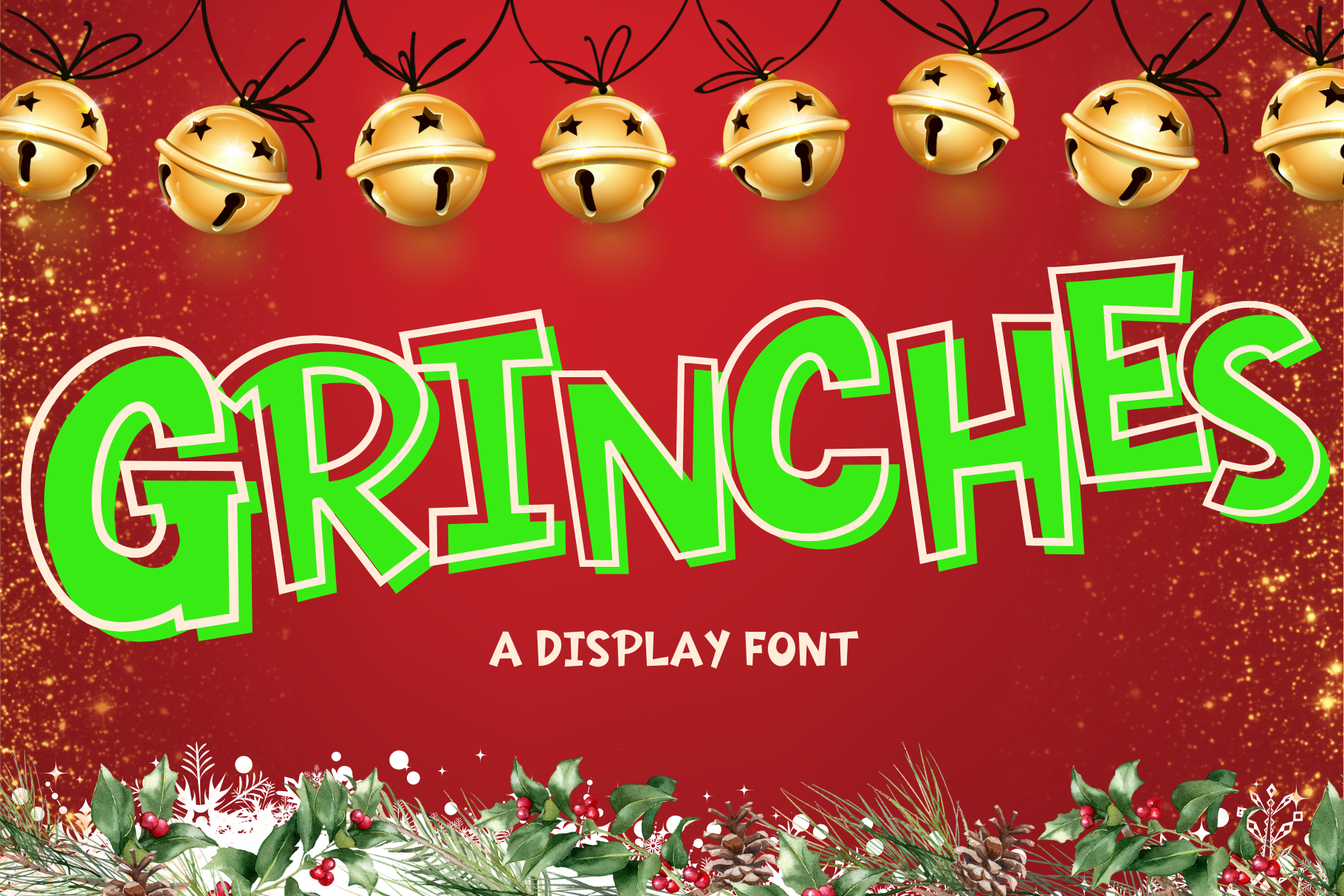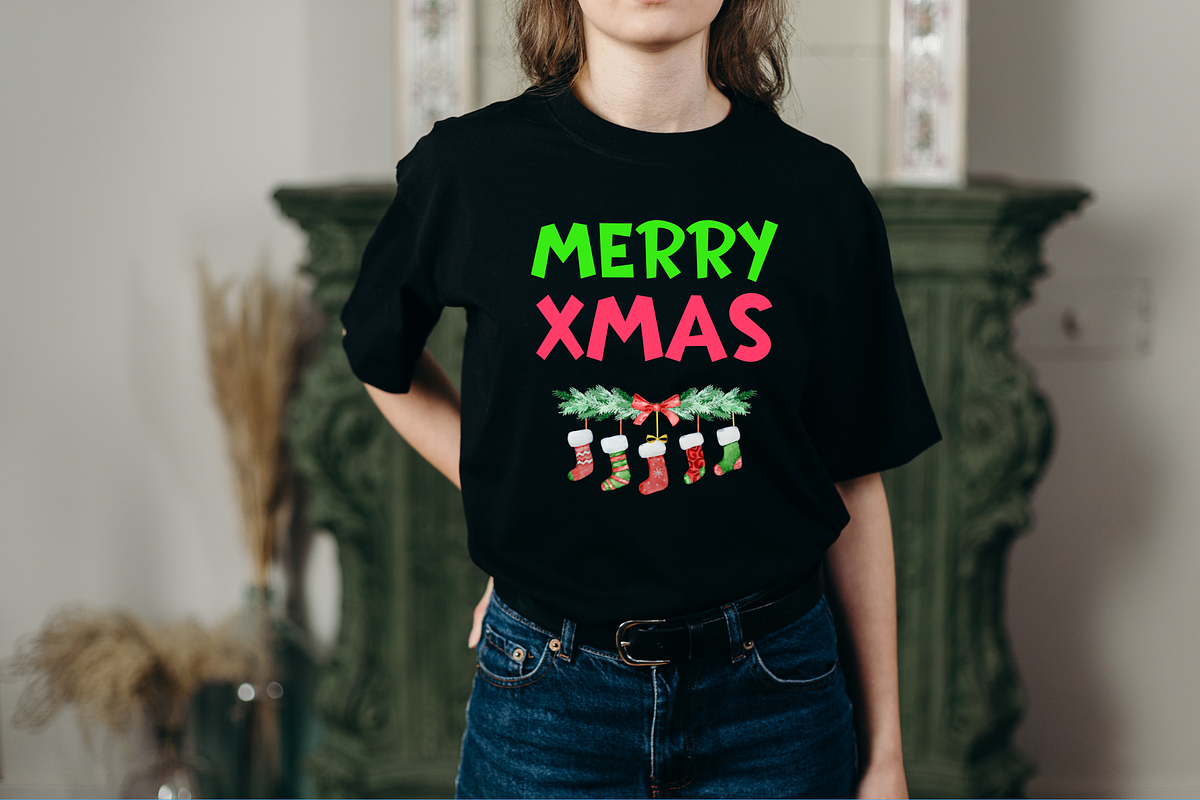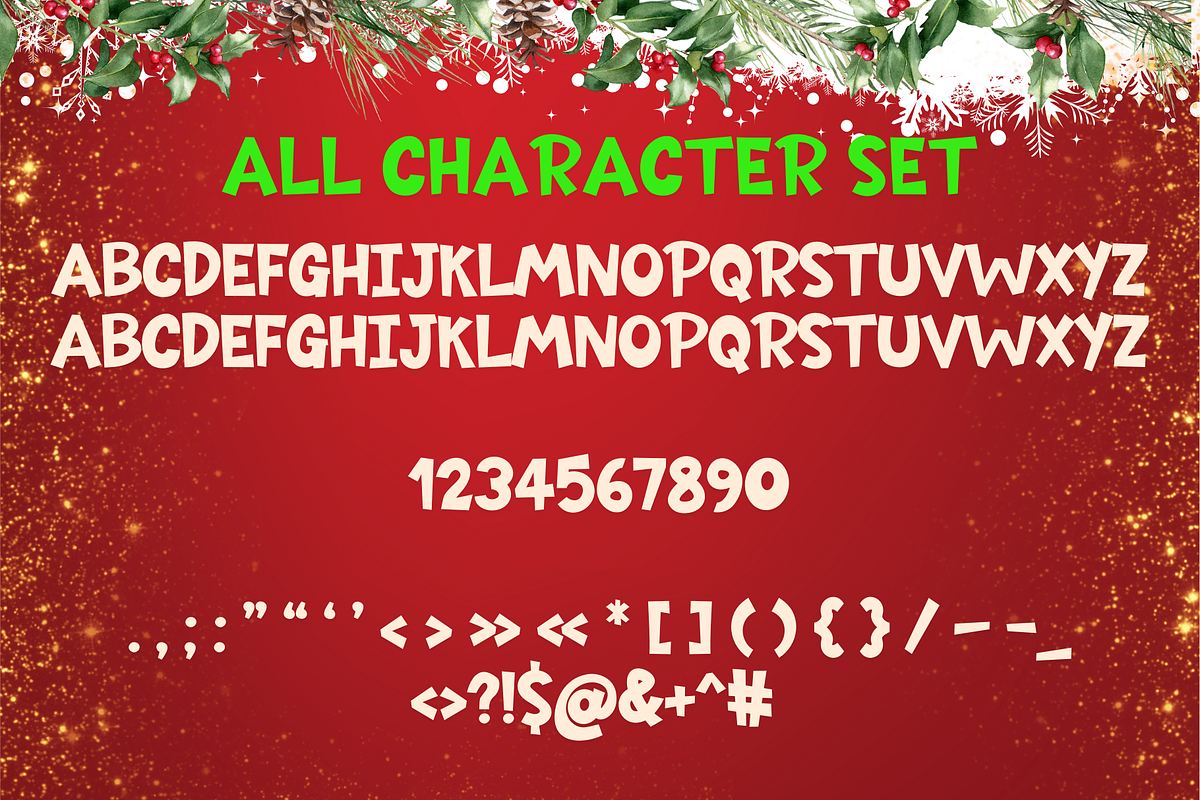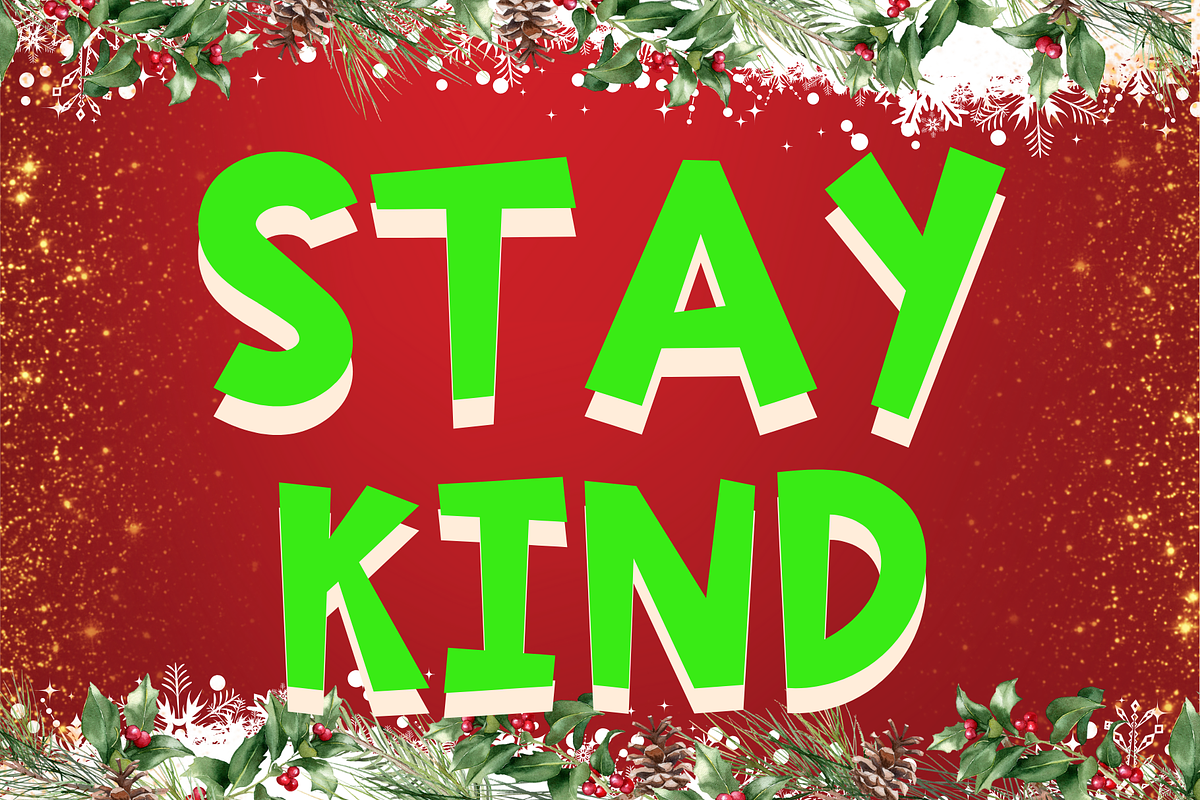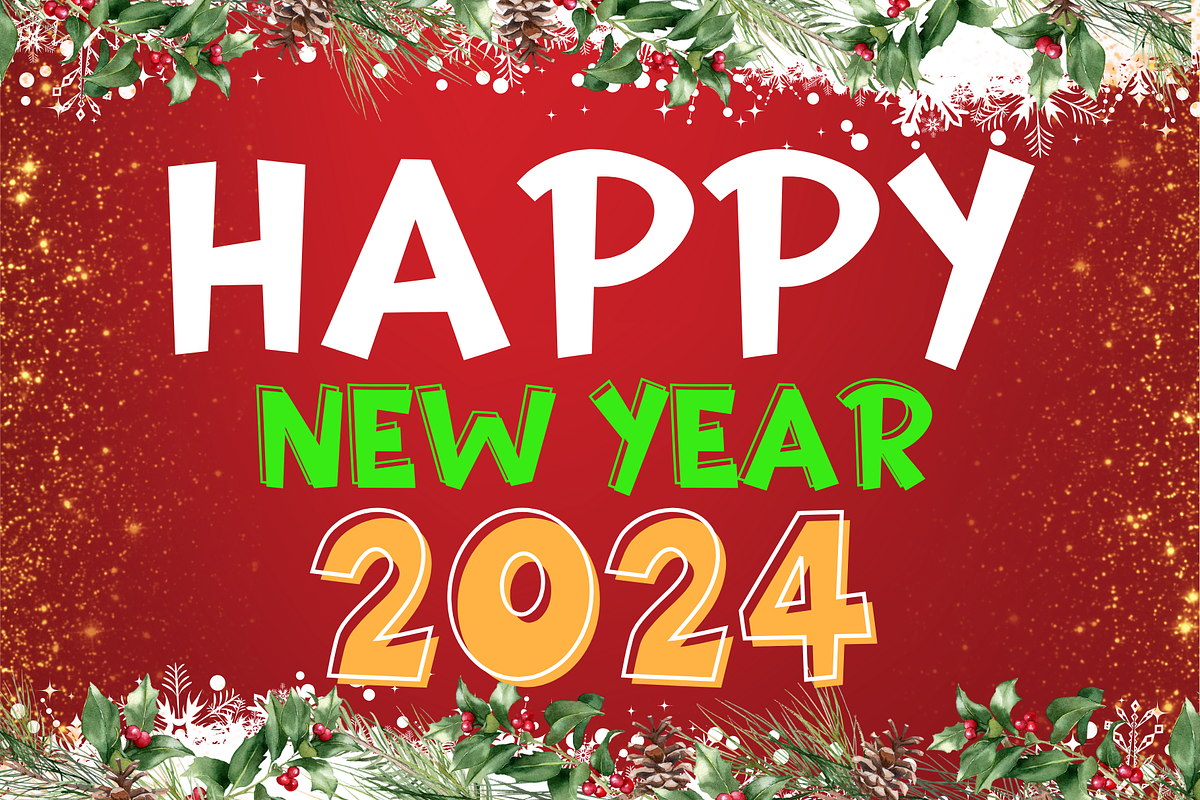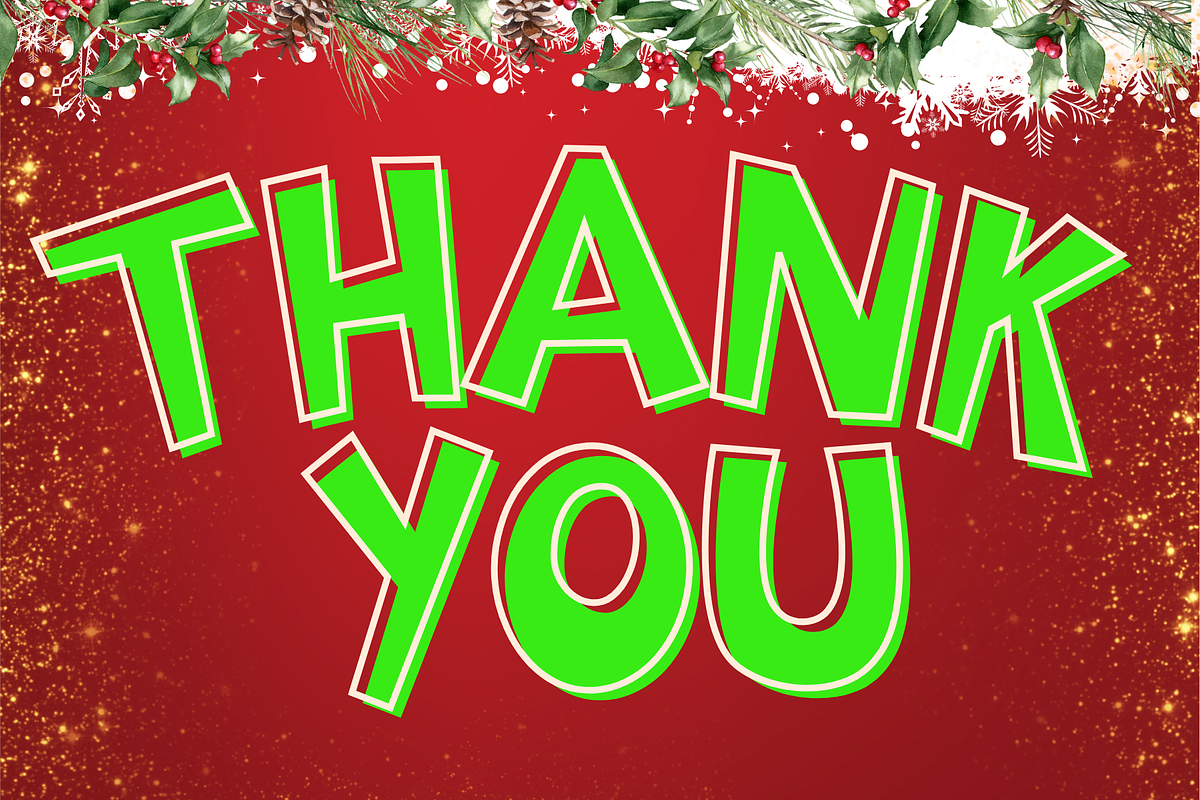
Grinches is a display font
Grinches is a display font. It embodies playfulness and authenticity and is the perfect choice for all your favorite projects such as blog posts, logos, branding, ads, invitations, greeting cards, planners, photo albums, decorations, and more. Add it to any of your designs, and enjoy the results!